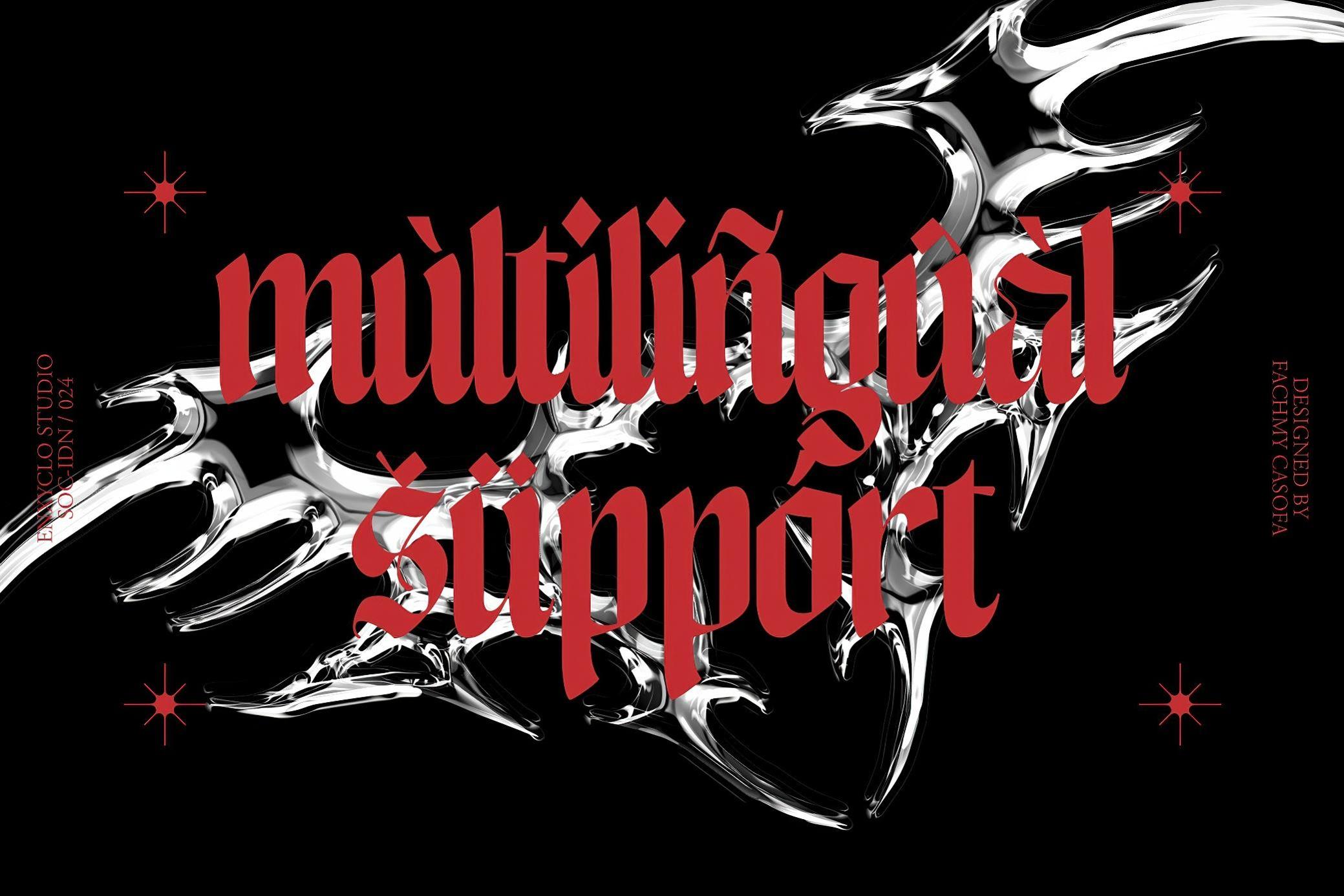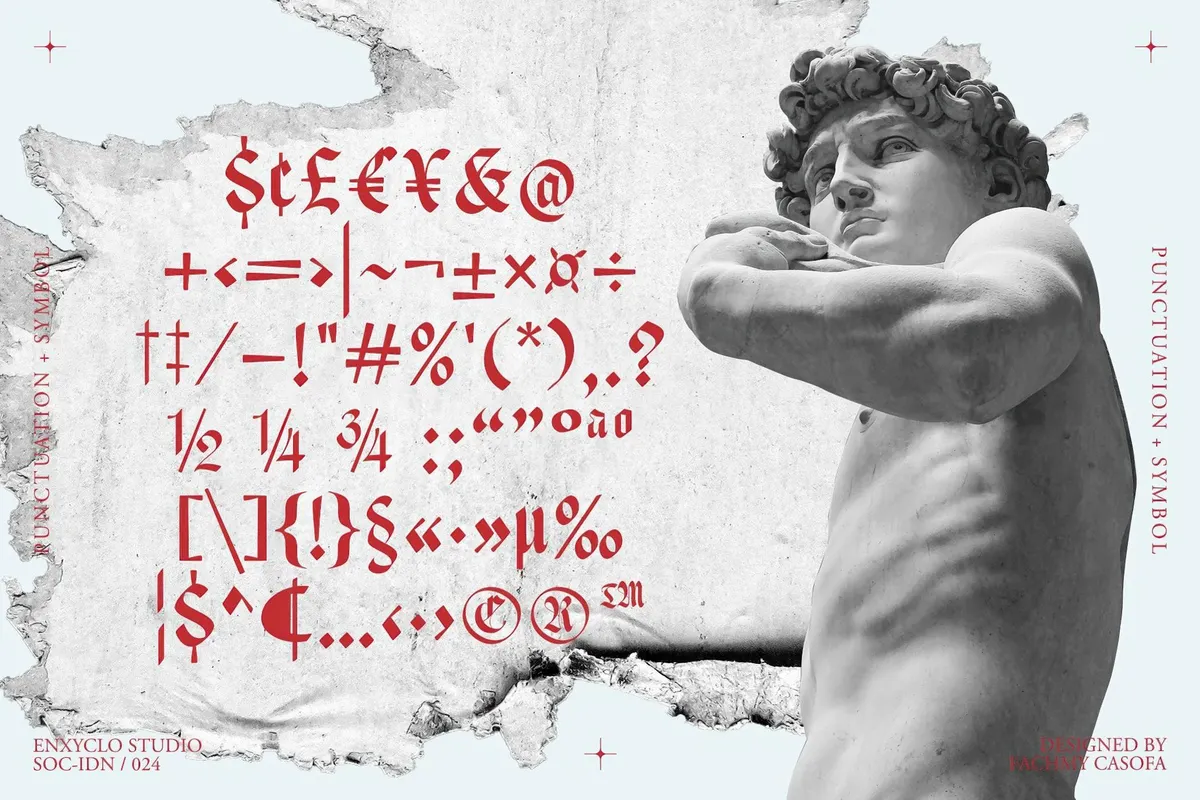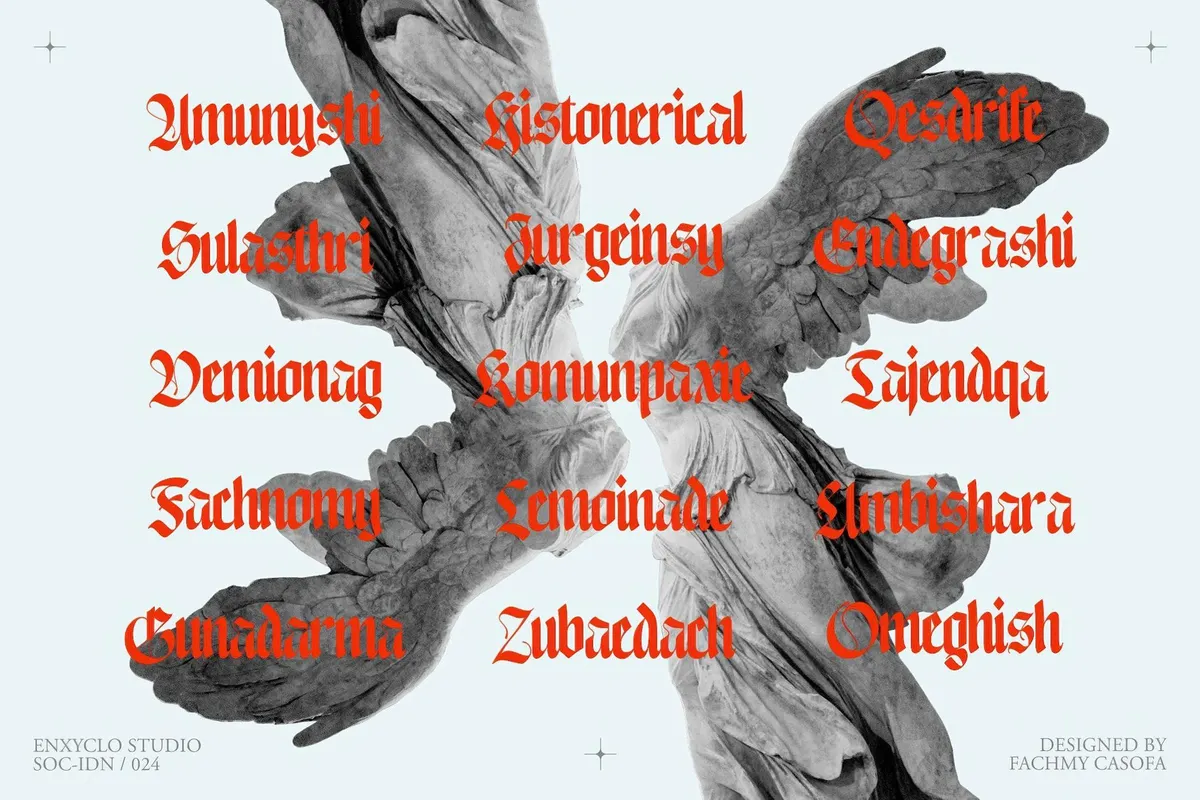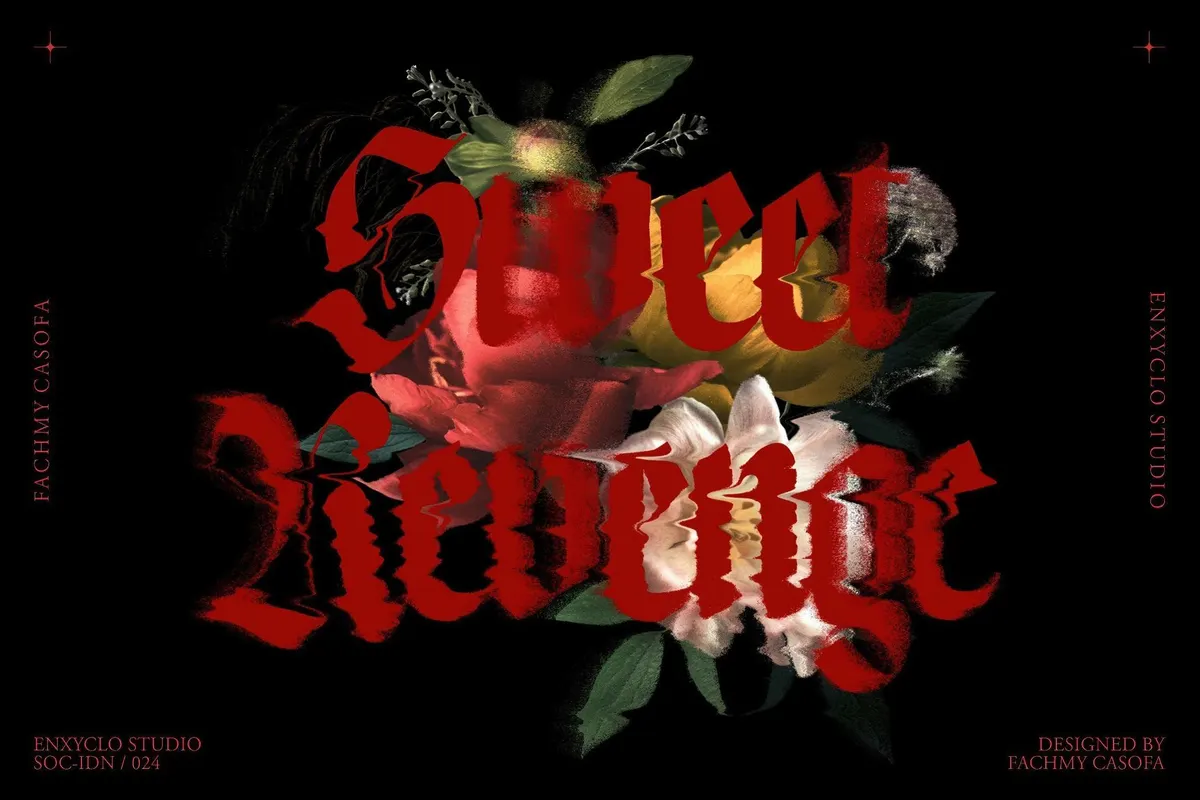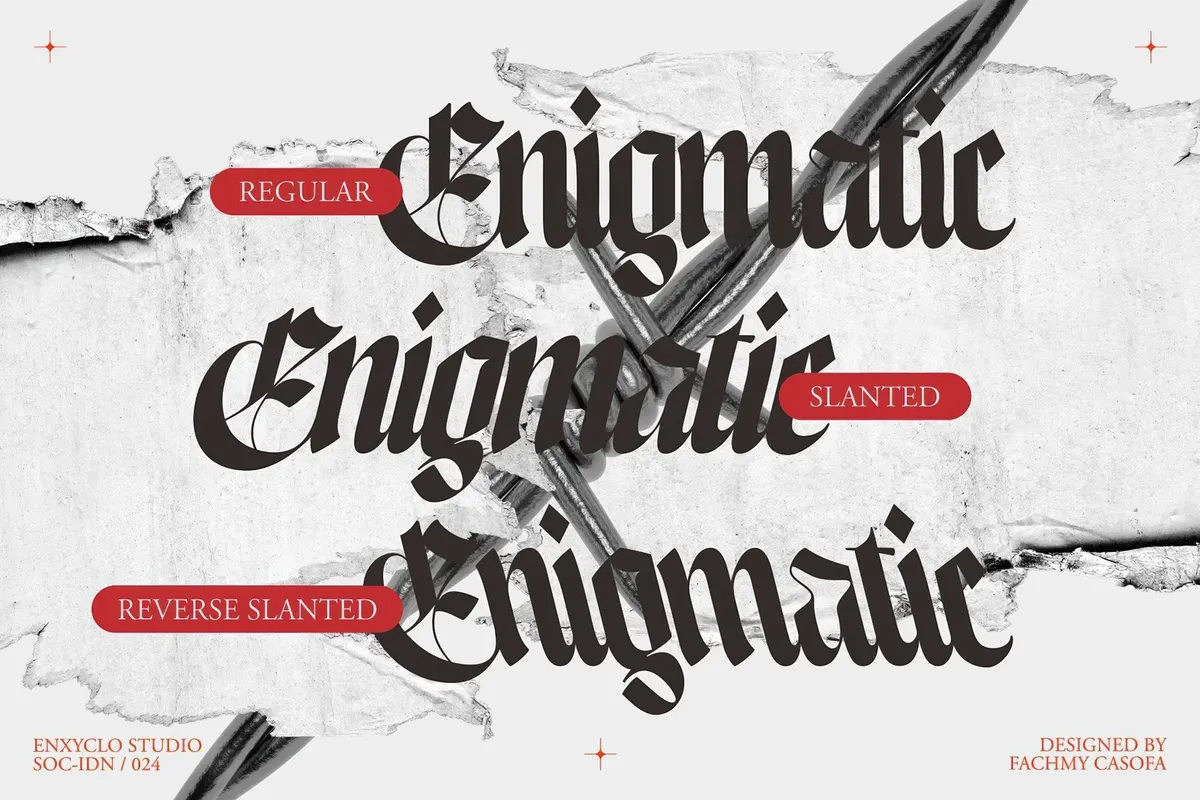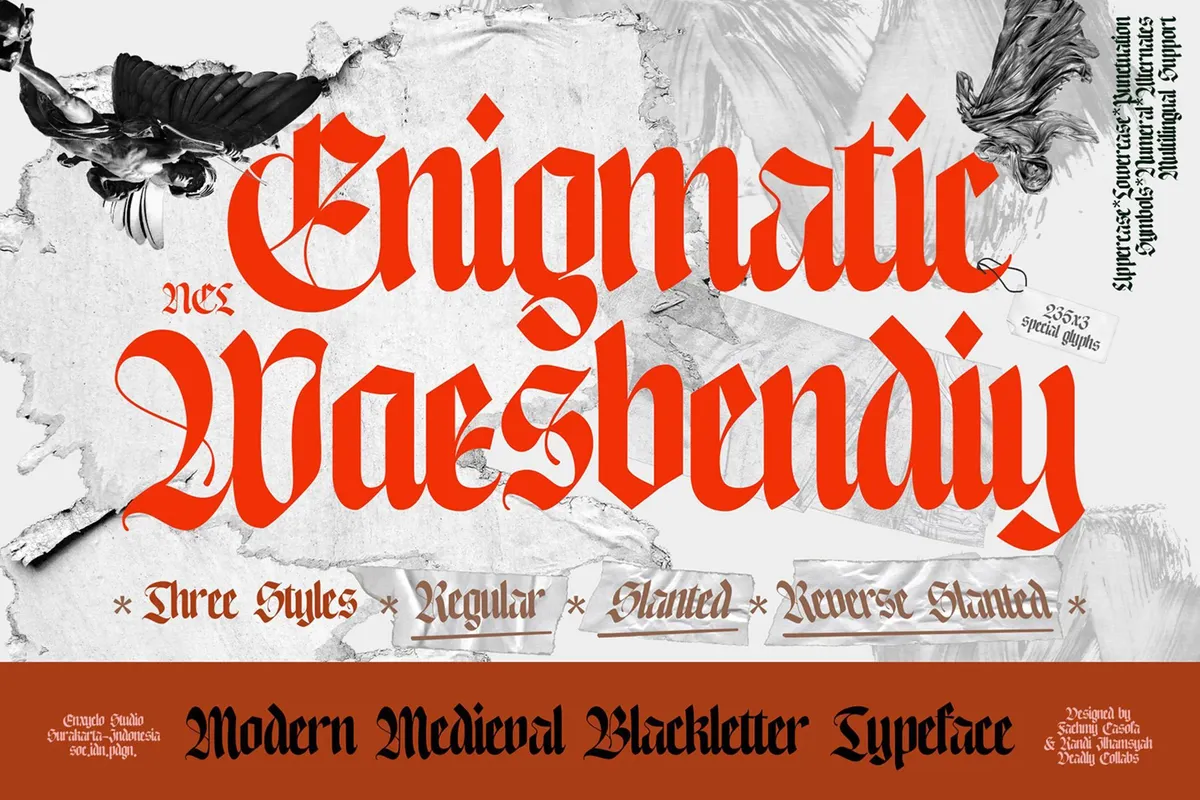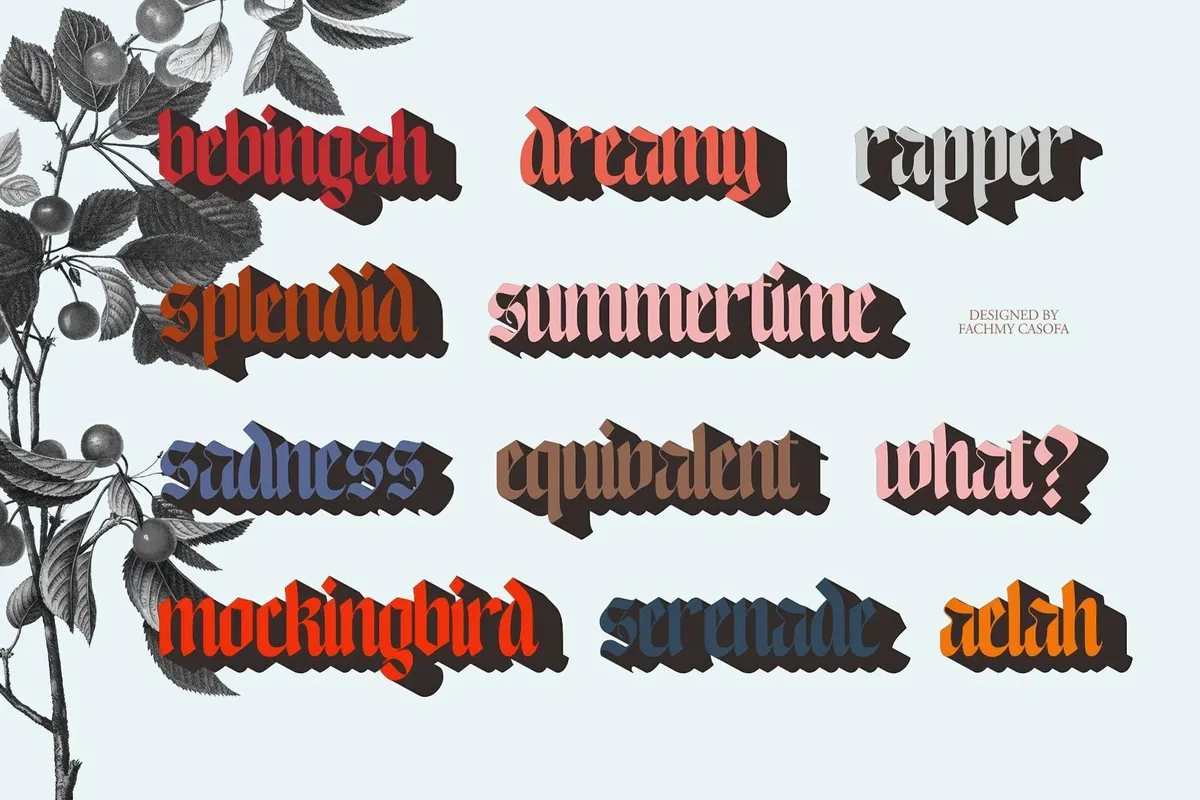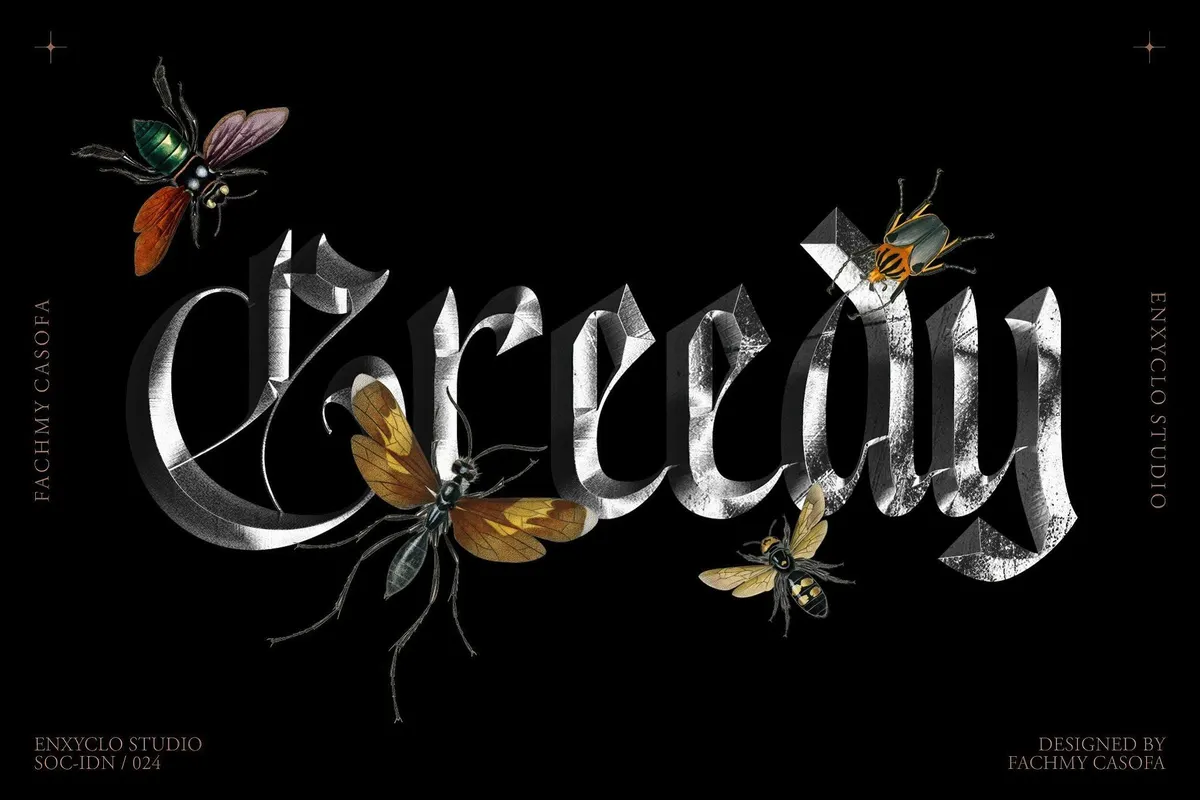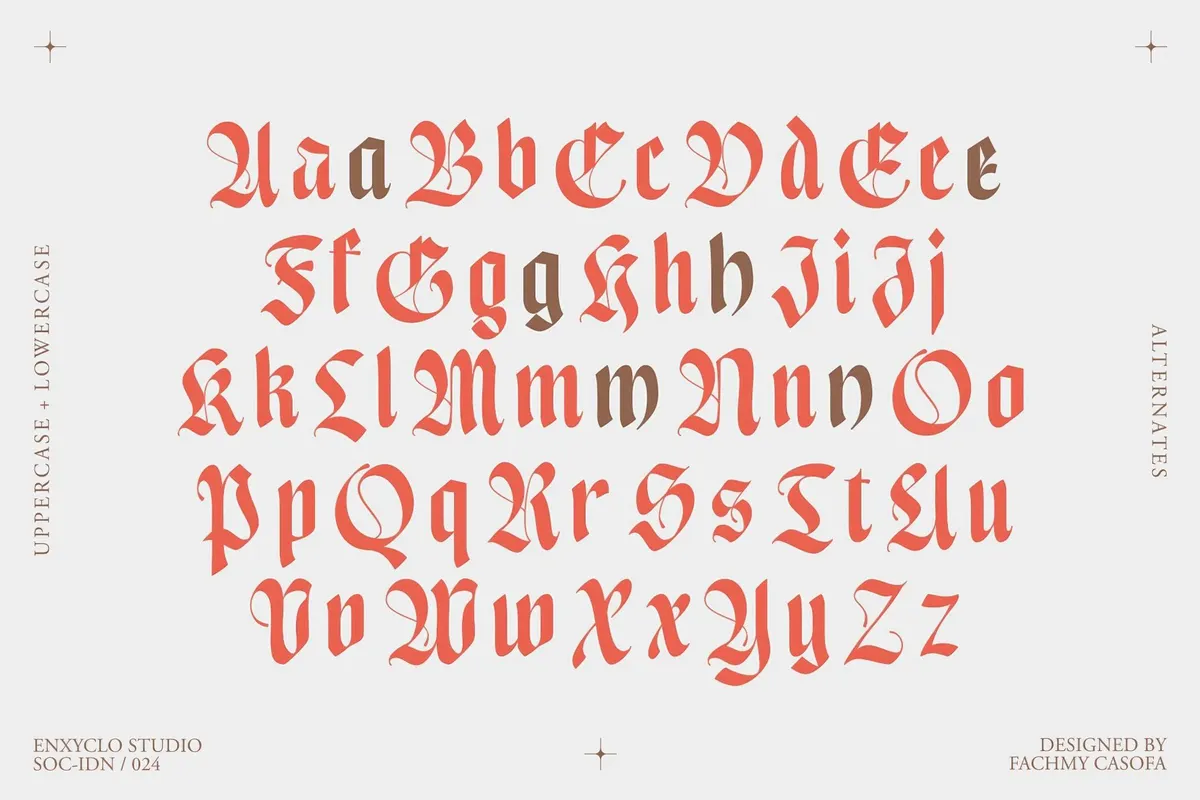
NCL Enigmatic Waesbendiy — Blackletter Font
NCL Enigmatic Waesbendiy is a message from Middle Age Europe, completed with modern versatility and usability. It features three styles: regular, slanted, and reverse slanted, to repeat ancient handwriting with maximum authenticity. Each style has 235 glyphs, which cover a complete character set, alternates, and multilingual support. Ideas on how to use it? It's a perfect fit for logos, branding, and packaging for breweries, wineries, tattoo parlors, metal bands, and luxury goods.